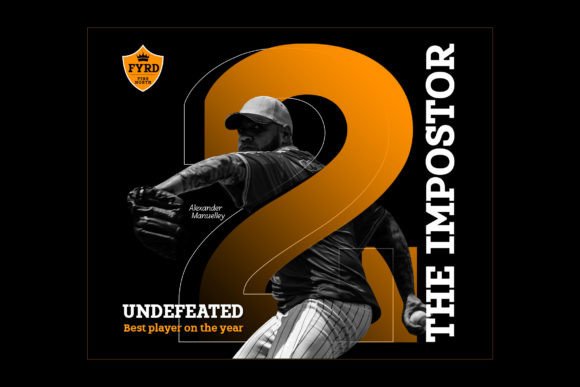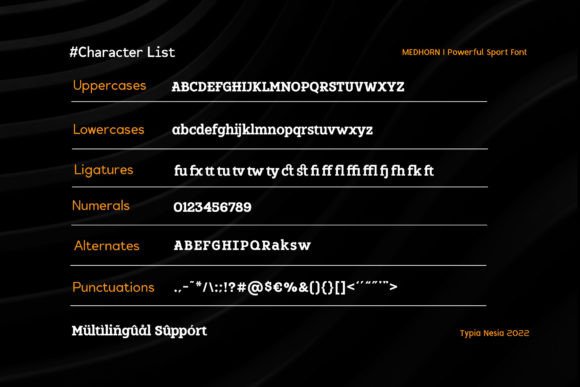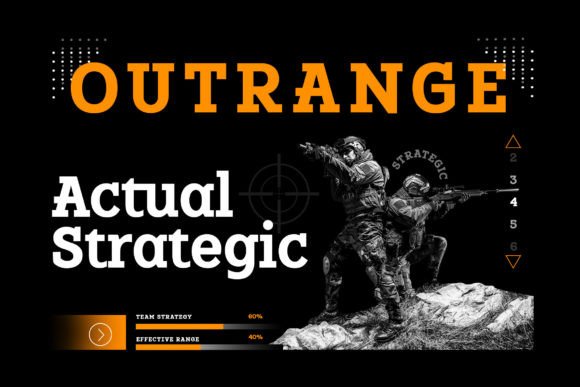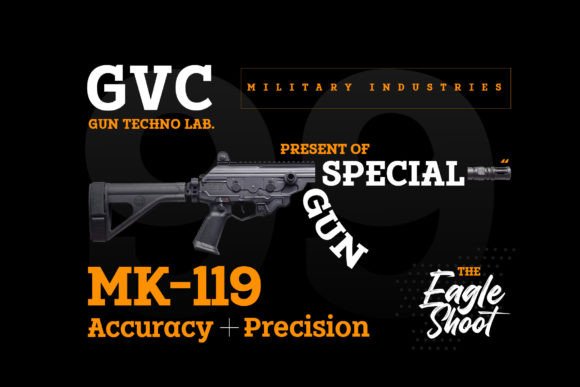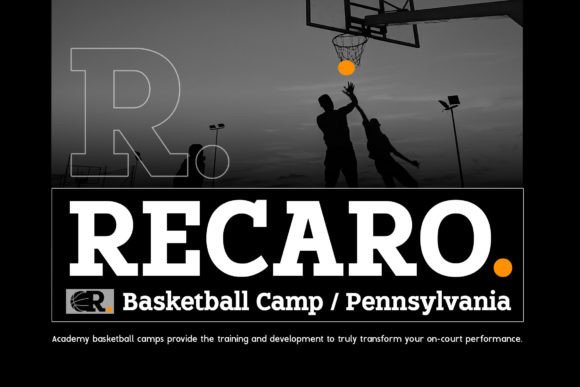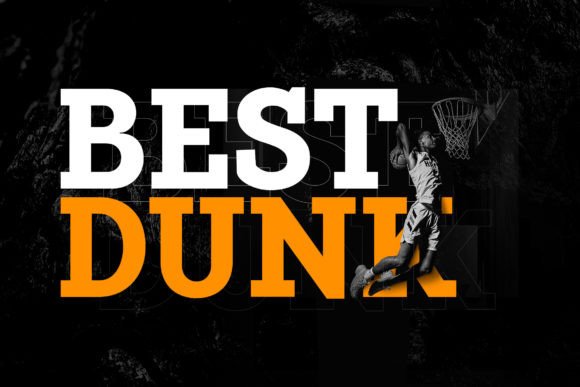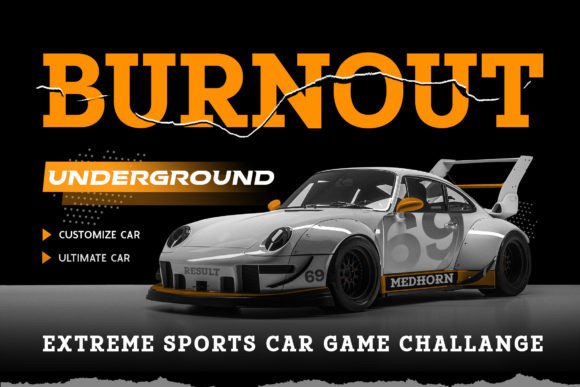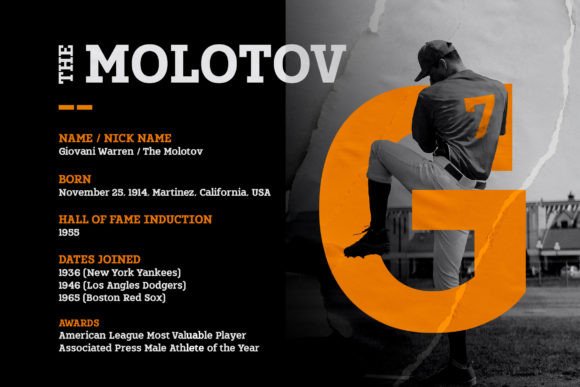
Medhorn Font
Medhorn – Modern Sports Slab Serif Font
Suitable for any design needs: logo, branding, modern advertising design, vintage garage design, adventure/mountain hiking brand, car and race, music, animation or movie, Sport poster quote, Game & e-sport, book/novel cover Title, editorial design, website/blog, card, and more. This font is PUA encoded, which means you can access all of the glyphs and swashes with ease!